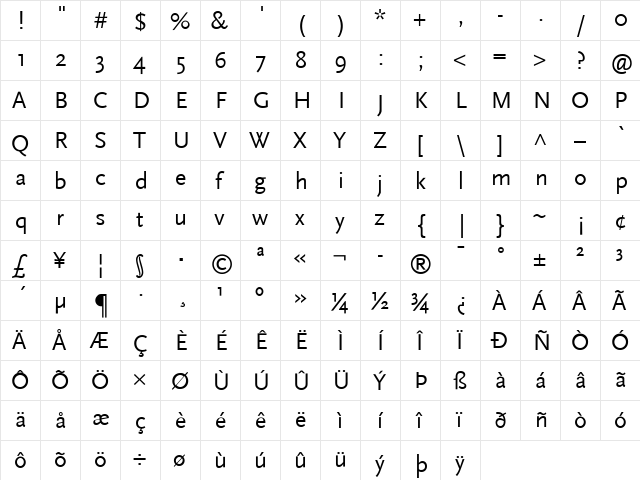
Scala Sans Regular
Design Context for Scala Sans Typeface
Scala Sans takes a measured approach to typography — its balanced proportions and neutral character make it a reliable workhorse for both digital and print work.